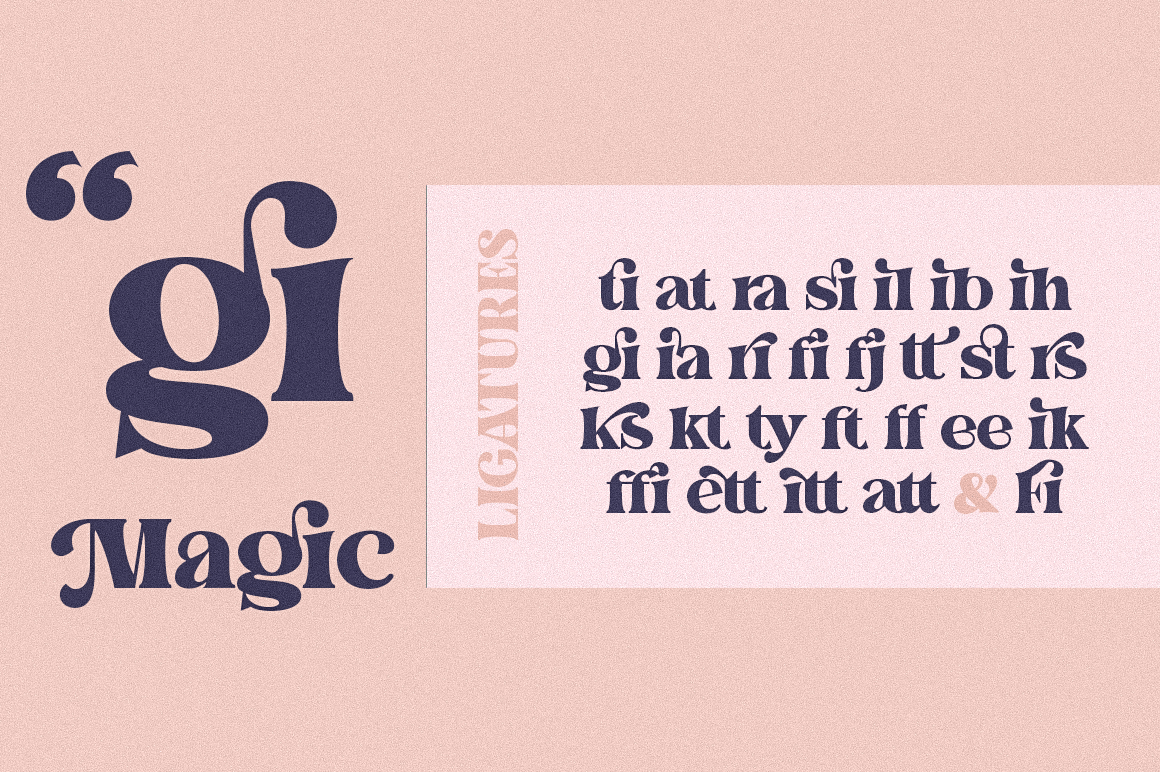
The Fieasto
Font Family by Dora Typefoundry
Introducing The Fieasto - a modern serif typeface with many styles. High contrast version of the famous Didot display that has been synonymous with fashion for decades. This font has more than 378 glyphs with multilingual letters included.
Based on modern serif fonts but by rethinking the height of lowercase letters to make this font look more fun, this font is modern and nostalgic and works great for logos, mastheads, and quotations. It's a beautiful pair with minimal serif.